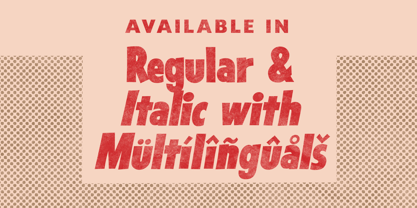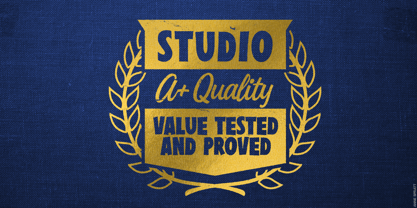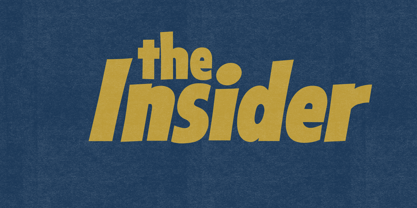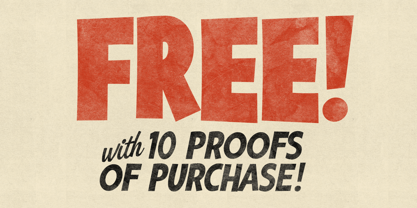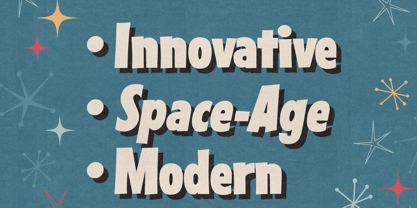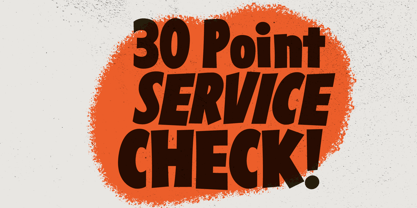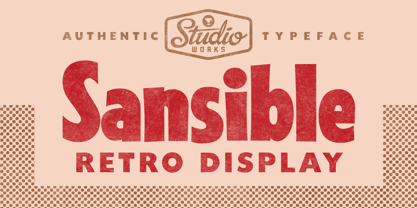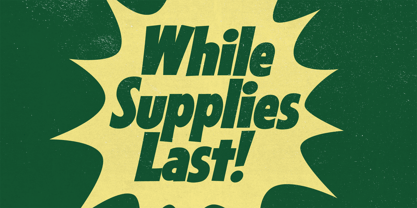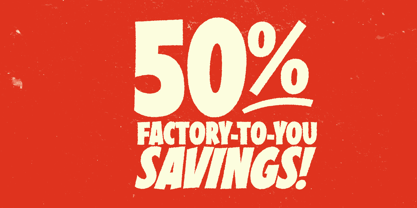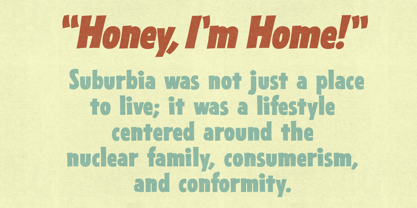
Sansible SW
by StudioWorks
Sansible is a punchy and playful bold condensed typeface meticulously produced from studying the hand-crafted, sans serif display typefaces from midcentury magazine ads. With its casual lines, friendly form and bold posture, Sansible adds a touch of retro flair to any project.
Whether you're crafting vintage-inspired posters, modern logos, or eye-catching headlines, Sansible delivers the perfect balance of style and readability. Its condensed form allows for efficient use of space without compromising impact, making it ideal for both print and digital designs.
Unlock endless creative possibilities and captivate your audience with Sansible – the quintessential choice for designers seeking a fusion of midcentury aesthetics and no-nonsense appeal.